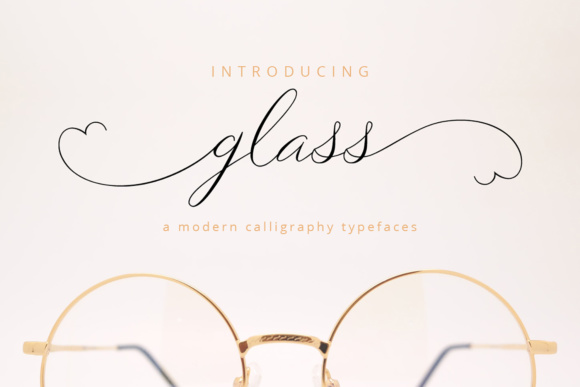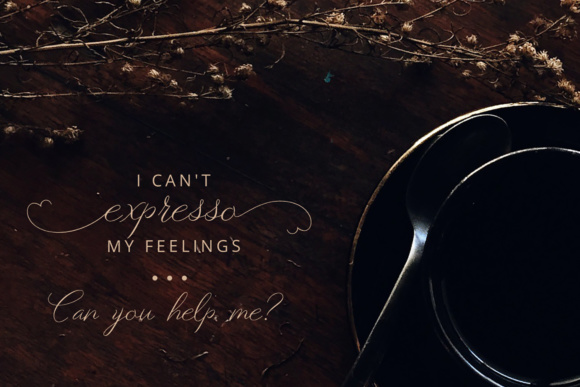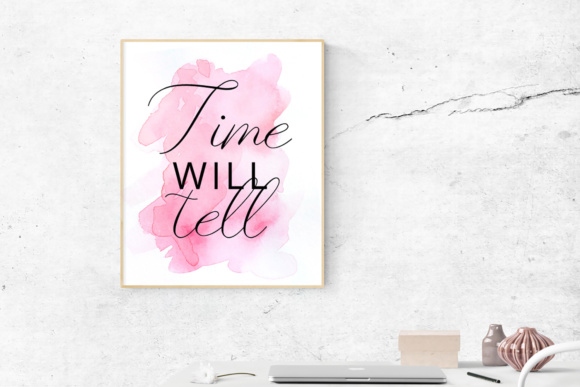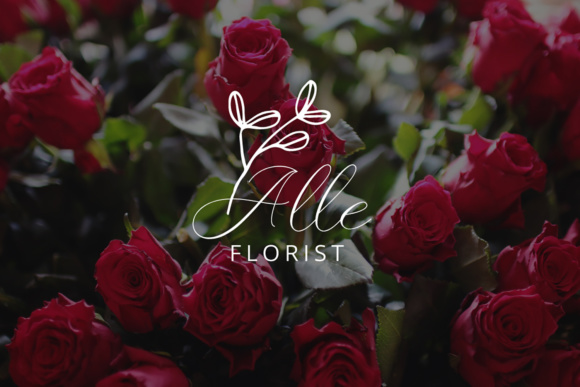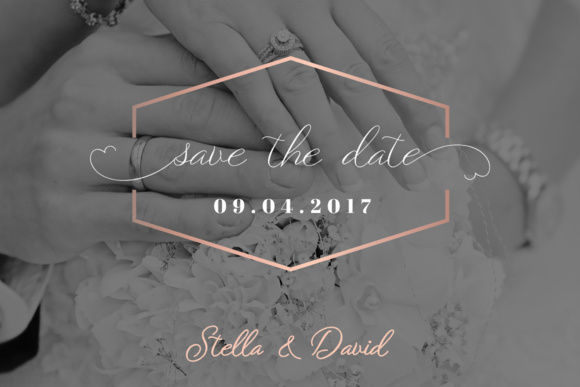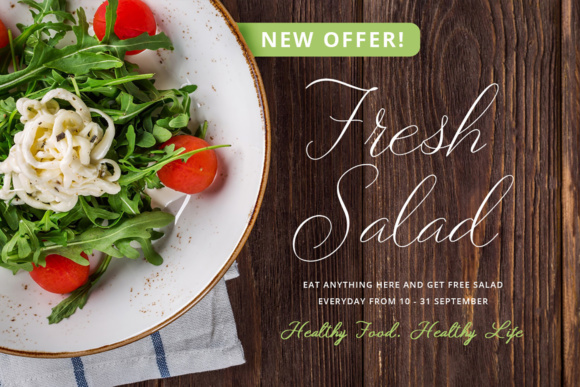
Glass Script Font
About Glass Script Font
The Glass Script is beautiful and clean font with elegant swashes, made for any occasion. It’s perfect for wedding invitations, menus and inspirational quotes.